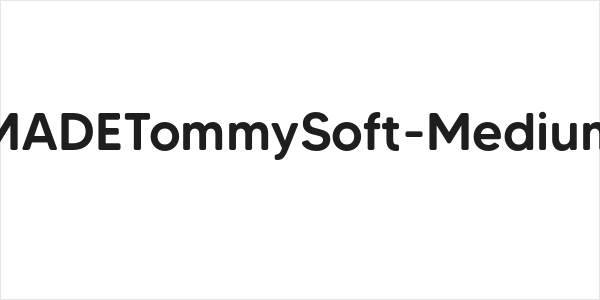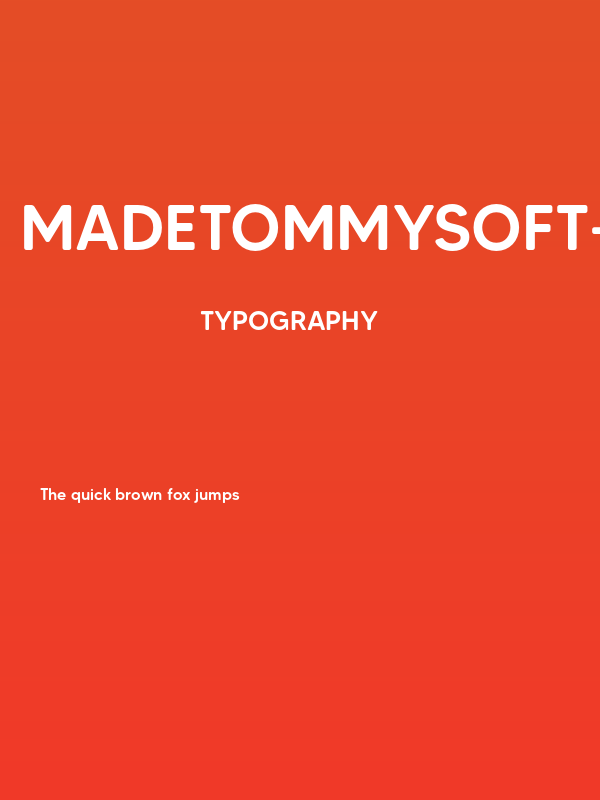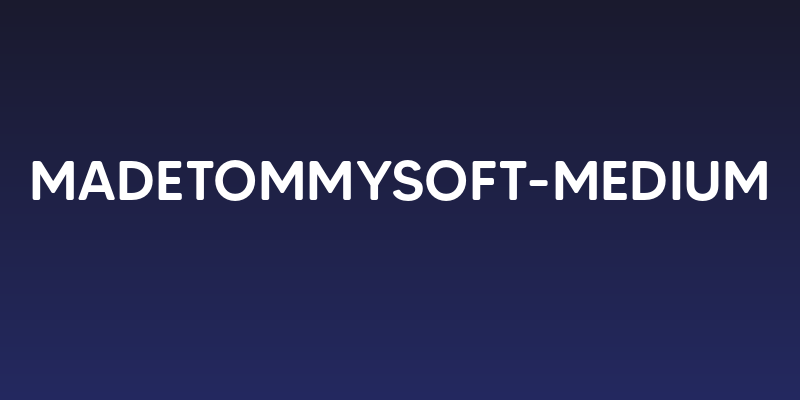
MADETommySoft-Medium Font
MADETommySoft-Medium Description
This font features a clean and modern sans-serif style with rounded edges, giving it a friendly and approachable appearance. The characters are evenly spaced, providing a balanced and harmonious look. The uppercase letters are bold and prominent, while the lowercase letters maintain a consistent weight, ensuring readability across different sizes. The numerals are clear and distinct, matching the overall aesthetic of the alphabet. Special characters are well-integrated, maintaining the font's cohesive design. This font is versatile, suitable for both digital and print media, and can be used effectively in various design contexts.